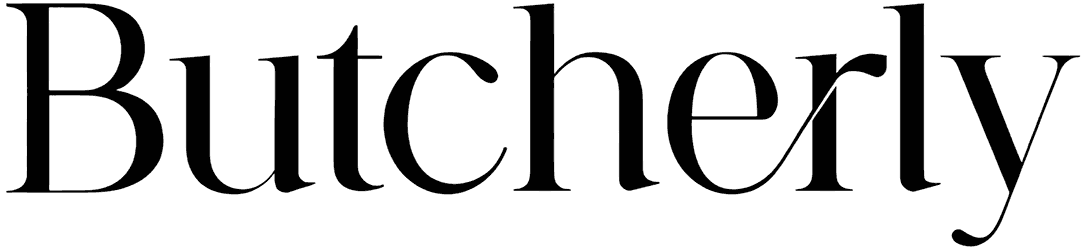
Butcherly Font
When everything else fails to give off the same level of prestige associated with your brand, a ligature font is the only thing that can make things right. The good news is that we have one of their best to introduce to you, the nice and sophisticated Butcherly!
It’s impossible to have such a first-rate serif font in your restaurant business cards, home furnishing store websites, or music class posters without having elegance as the main feature of your artwork.